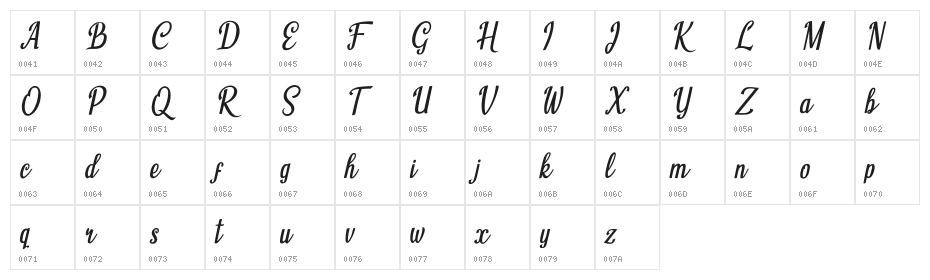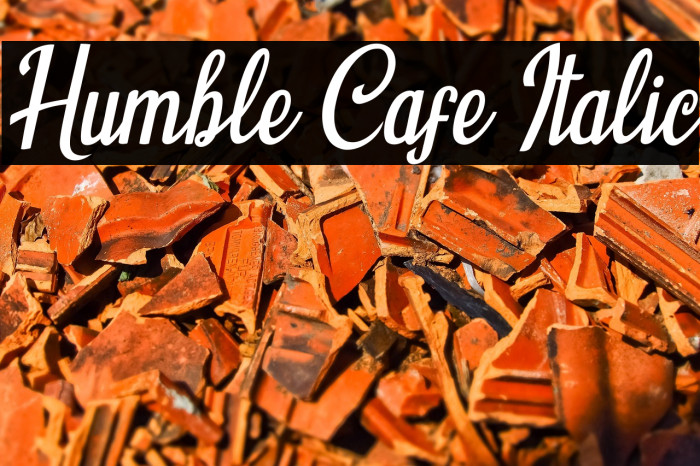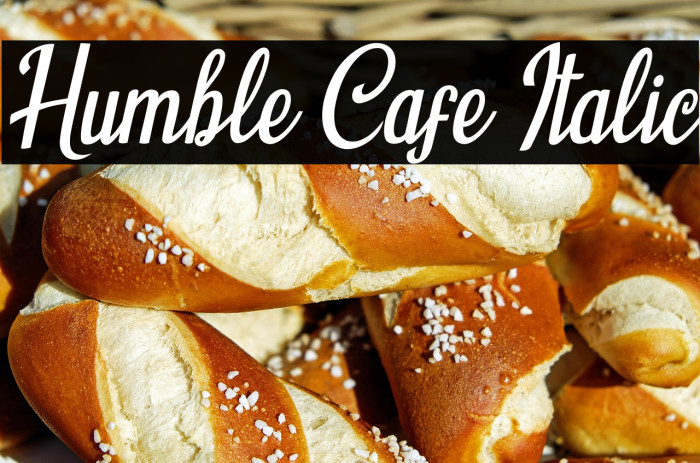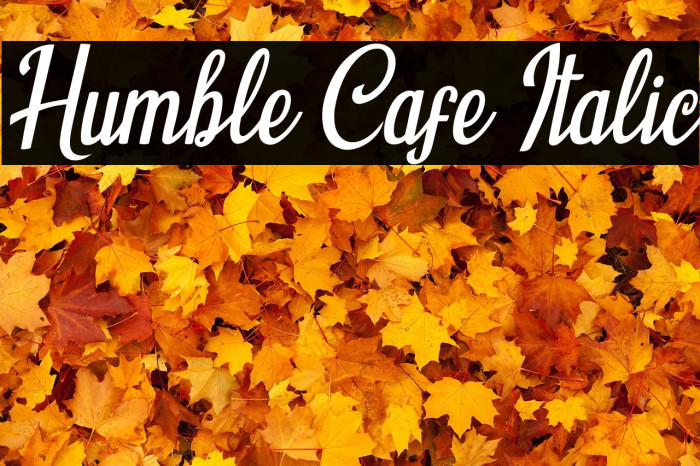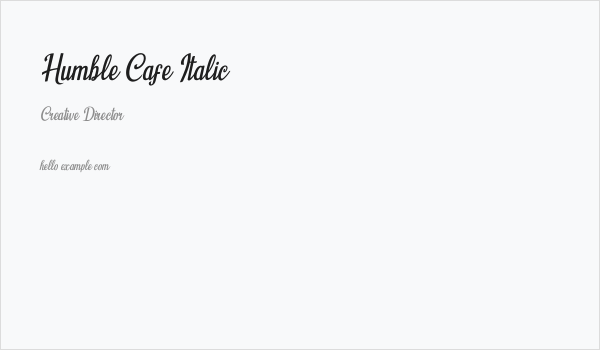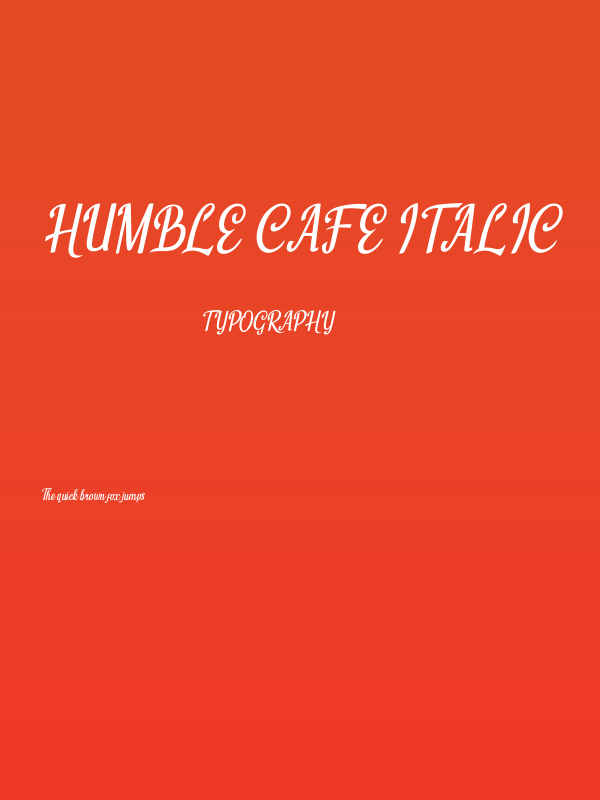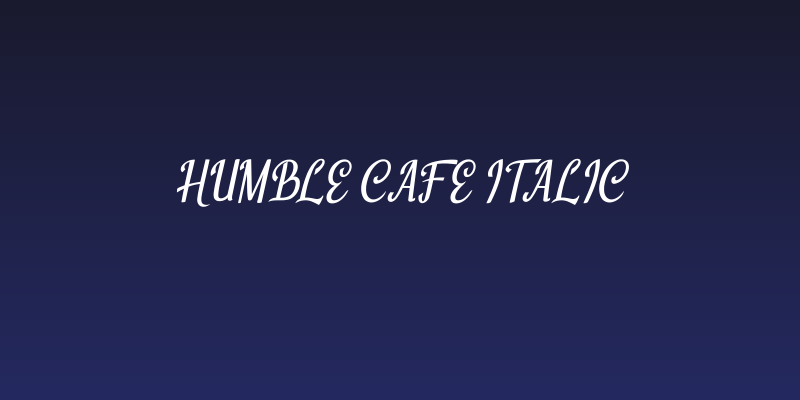
Humble Cafe Italic Font
Humble Cafe Italic Description
This font exudes a charming and elegant script style, characterized by its flowing, cursive letterforms that convey a sense of sophistication and warmth. The uppercase letters are tall and slightly slanted, with smooth curves and a consistent stroke width that adds to its graceful appearance. The lowercase letters maintain the same fluidity, with some characters featuring distinctive loops and swashes that enhance its decorative appeal. The numerals and special characters are designed to match the overall aesthetic, ensuring a cohesive look across all text. This font is perfect for projects that require a touch of elegance and style, such as invitations, branding, and packaging.
| Overall Style | Elegant, Decorative |
| Use Case | Headlines, Invitations, Branding |
| Proposed Projects | Ideal for wedding invitations, elegant branding, stylish packaging, and decorative signage. |